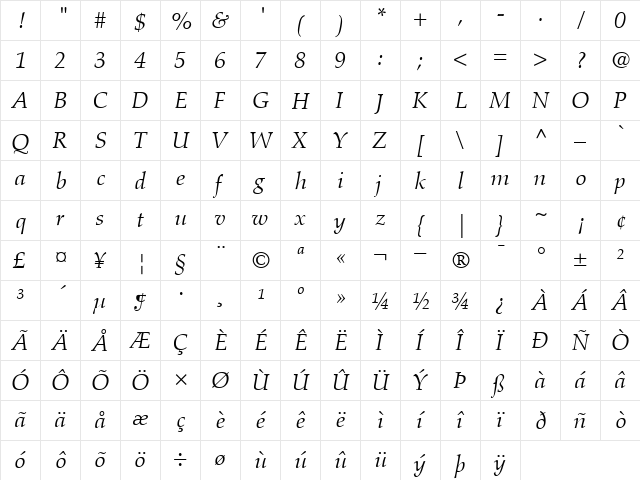
Aldus RomanItalic Font Preview
Aldus RomanItalic
Design Context for Aldus Typeface
Aldus is a composed and adaptable typeface that performs quietly and consistently across a wide range of design contexts. The slanted form adds forward momentum and visual energy.
Pro Tip: Try Aldus for annotation and caption copy alongside an upright companion — the contrast in angle creates a dynamic but ordered typographic system.